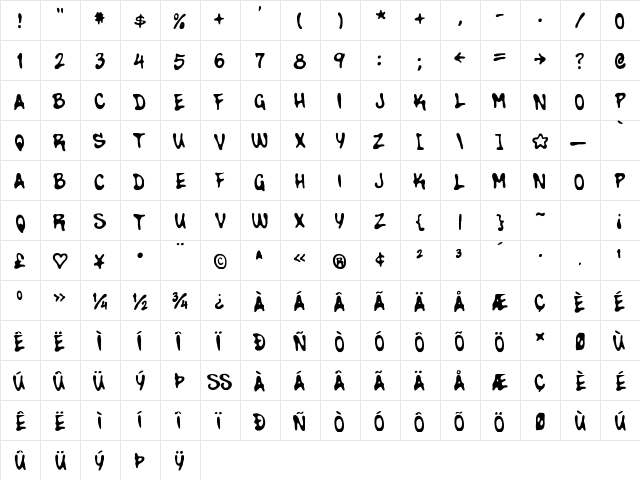
Walnut Regular
Design Context for Walnut Typeface
Walnut is a composed and adaptable typeface that performs quietly and consistently across a wide range of design contexts.
Pro Tip: Use Walnut in both headline and body roles to test its range before committing to a single application.